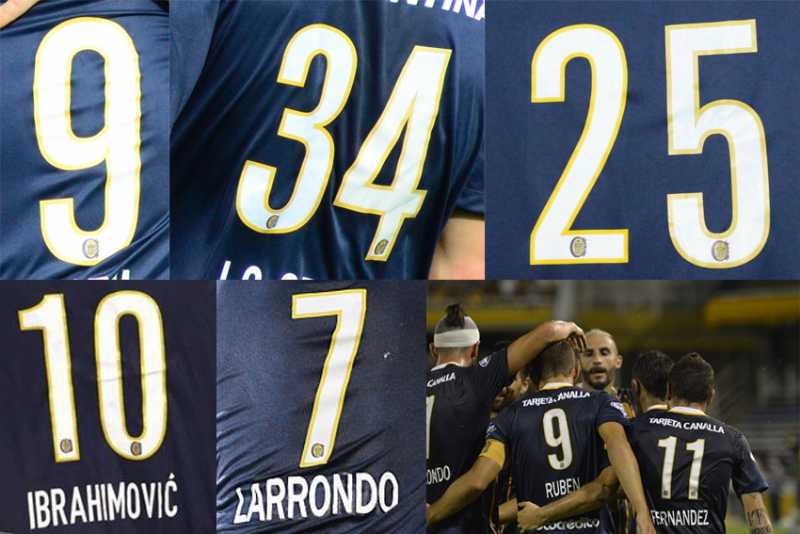
I need the name of this numbers,
apparently the text is like din condensed bold? the numbers i dont know
The closest I could find is Titling Gothic
I'm not sure it's an exact match but it's pretty good.
harris wrote: The closest I could find is Titling Gothic
I'm not sure it's an exact match but it's pretty good.